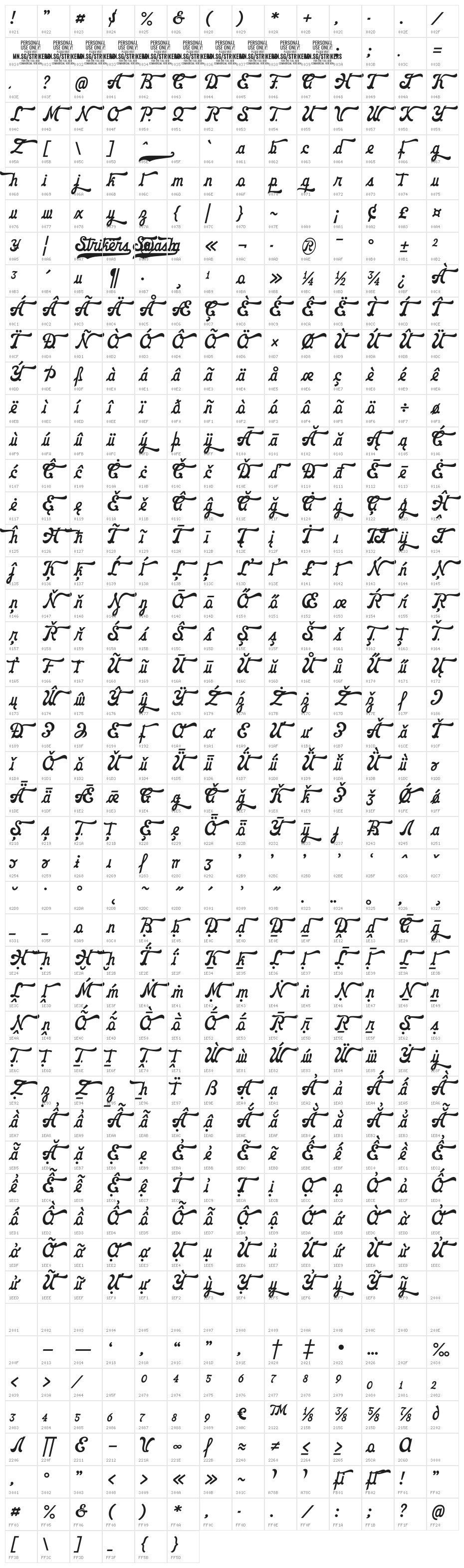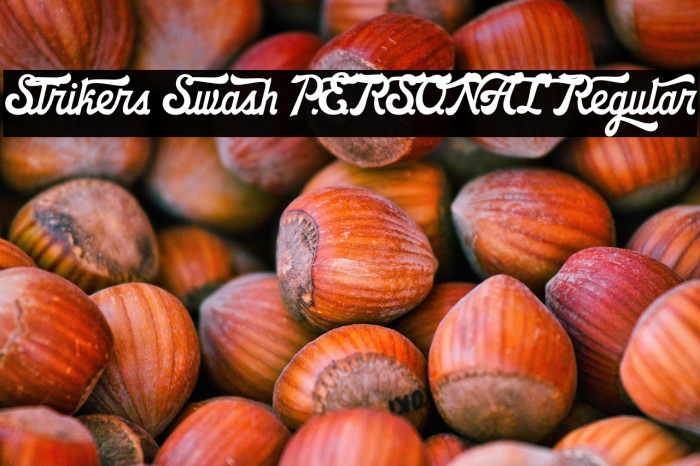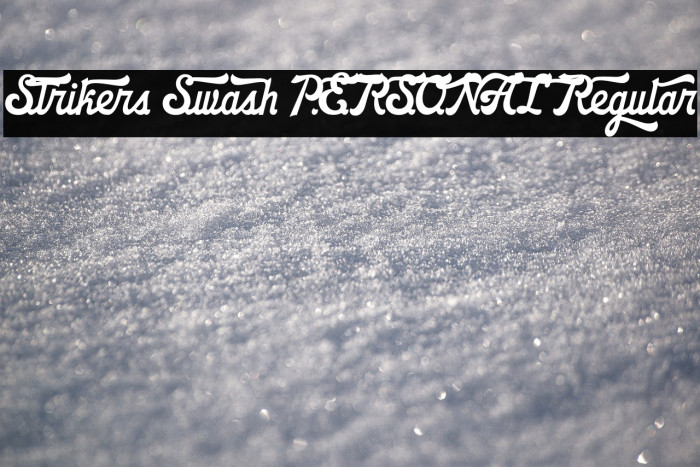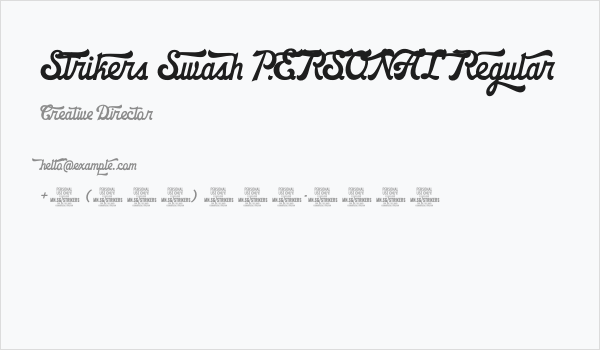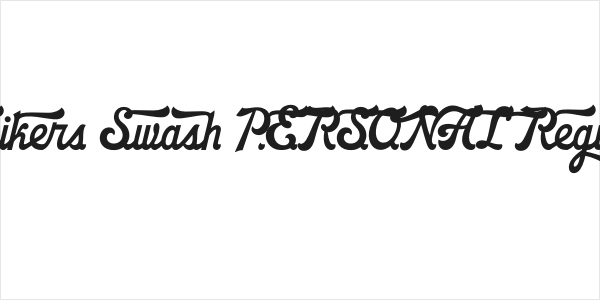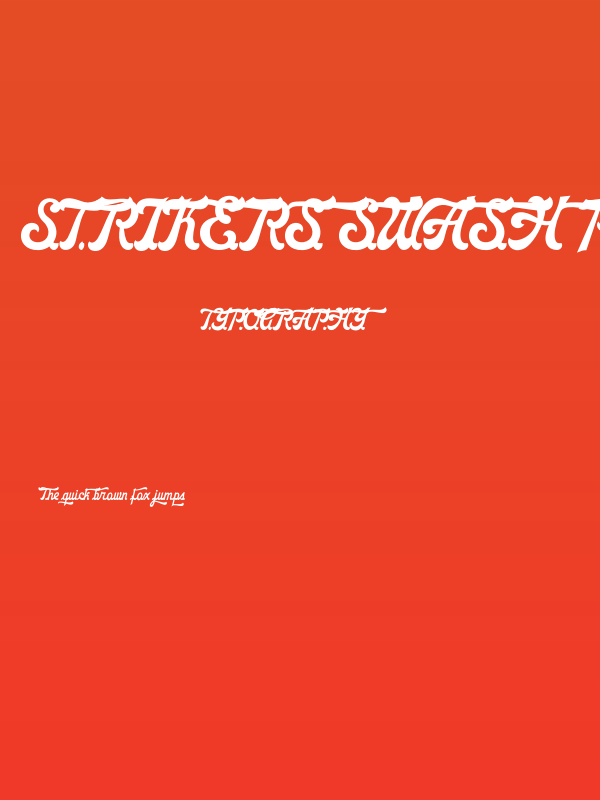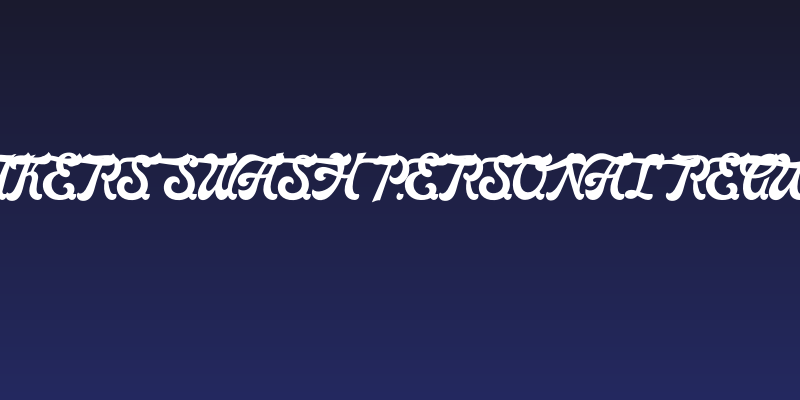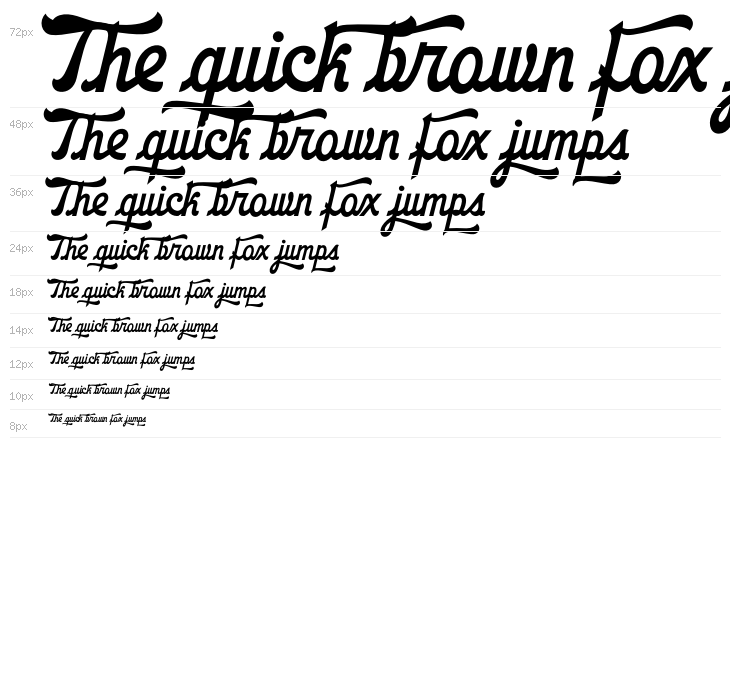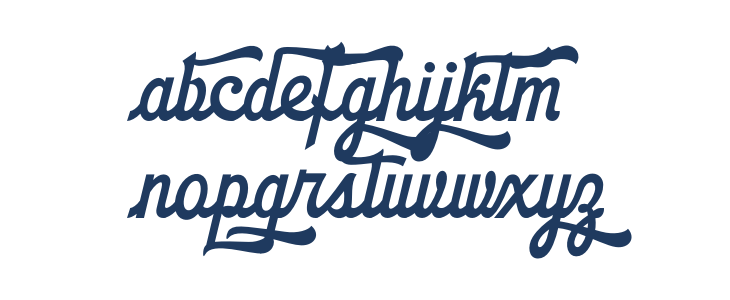
Strikers Swash PERSONAL Regular Font
Strikers Swash PERSONAL Regular Description
This font features a bold and dynamic script style with a distinctive swash design. The uppercase letters are characterized by sweeping curves and flourishes, giving them an elegant and decorative appearance. The lowercase letters maintain a consistent flow, with some characters extending below the baseline, adding to the font's fluidity. The numbers and special characters are equally stylized, ensuring a cohesive look across all glyphs. This font is ideal for projects that require a touch of sophistication and flair, such as invitations, branding, and headlines.